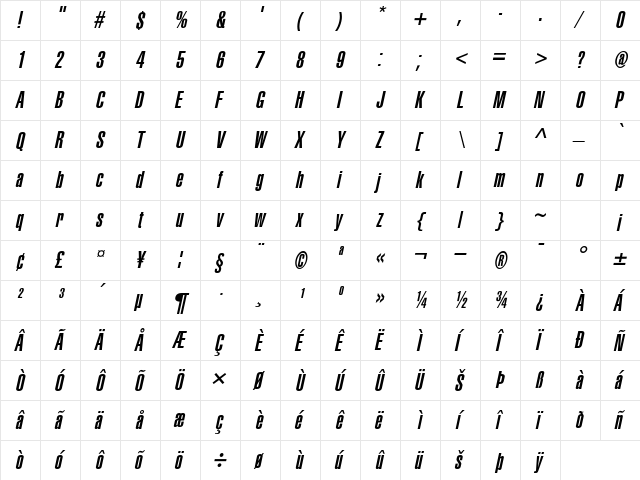
CorporateCompressedUltra Italic Font Preview
CorporateCompressedUltra Italic
CorporateCompressedUltra Italic Font Details
Design Context for CorporateCompressedUltra Typeface
CorporateCompressedUltra is a composed and adaptable typeface that performs quietly and consistently across a wide range of design contexts. The dynamic lean of this cut emphasises speed and emphasis in any layout.
Pro Tip: Use CorporateCompressedUltra for emphasis, pull quotes, and subheadings where its slanted energy can add rhythm to the layout.